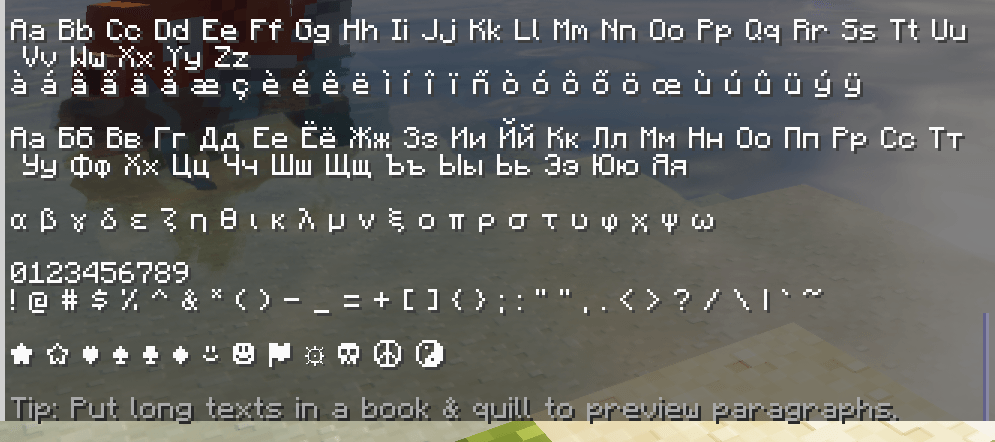
Pokemon DS Font Pack
Bring back the nostalgic Pokémon DS interface with this clean, pixel-perfect font replacement for Minecraft menus and dialogues.
DS POKEMON Font (After)
Default MC Font (Before)
Option Menu